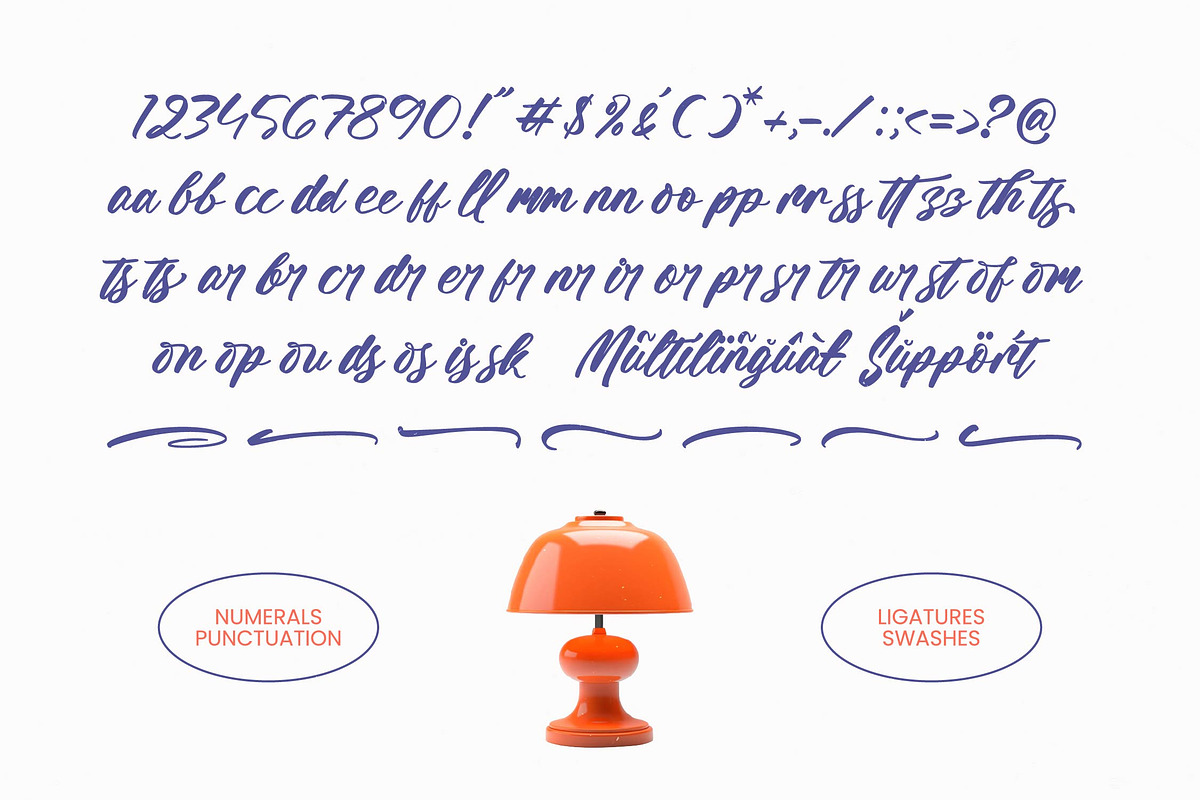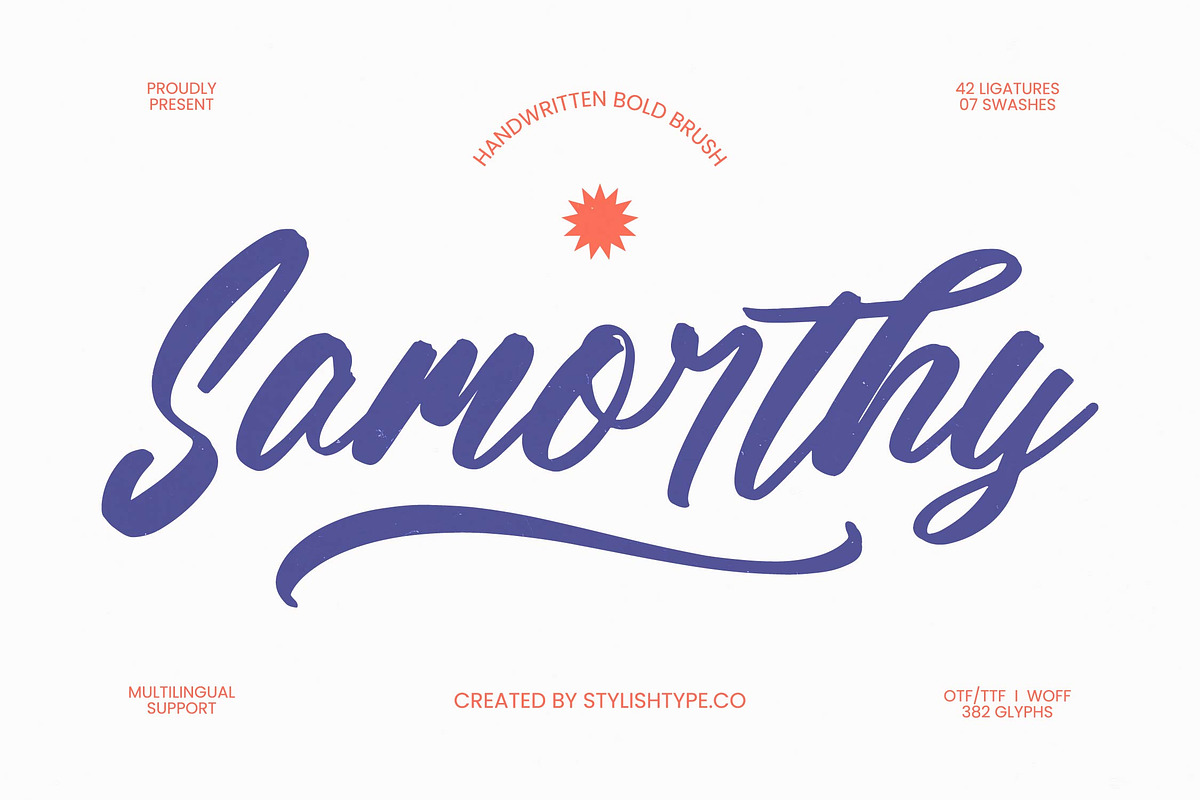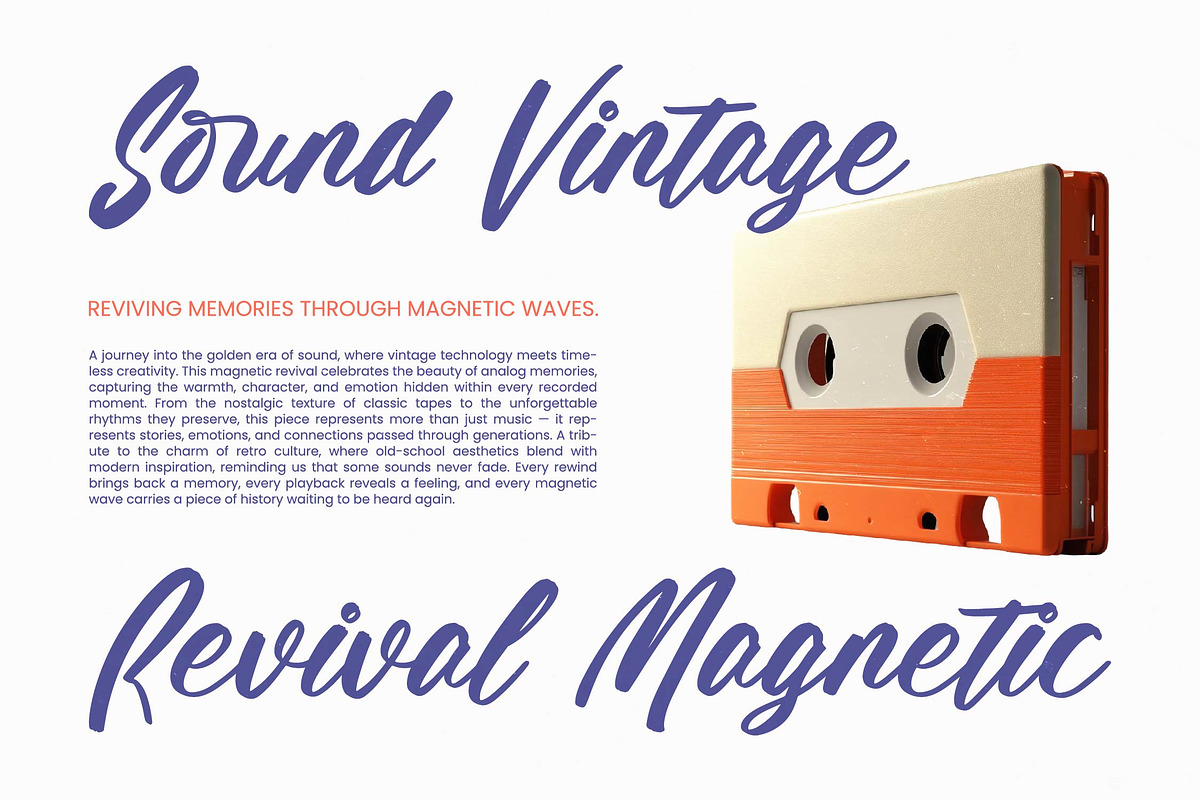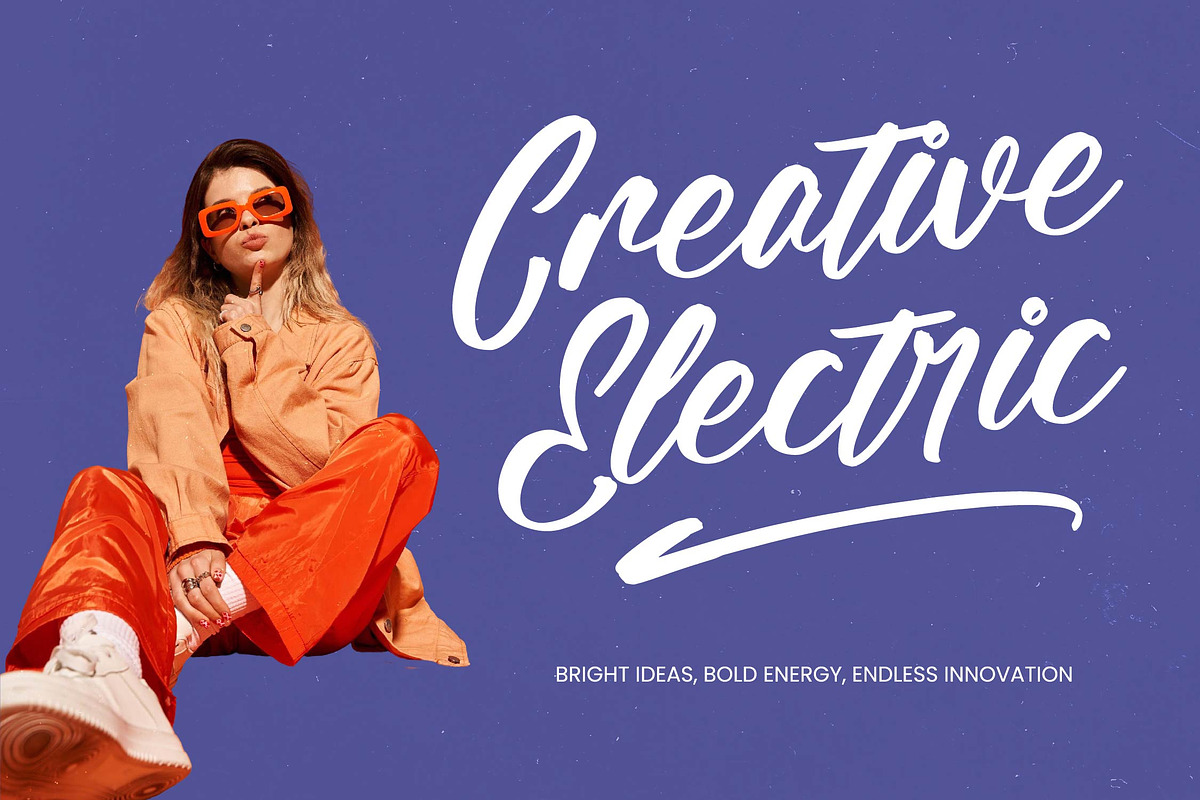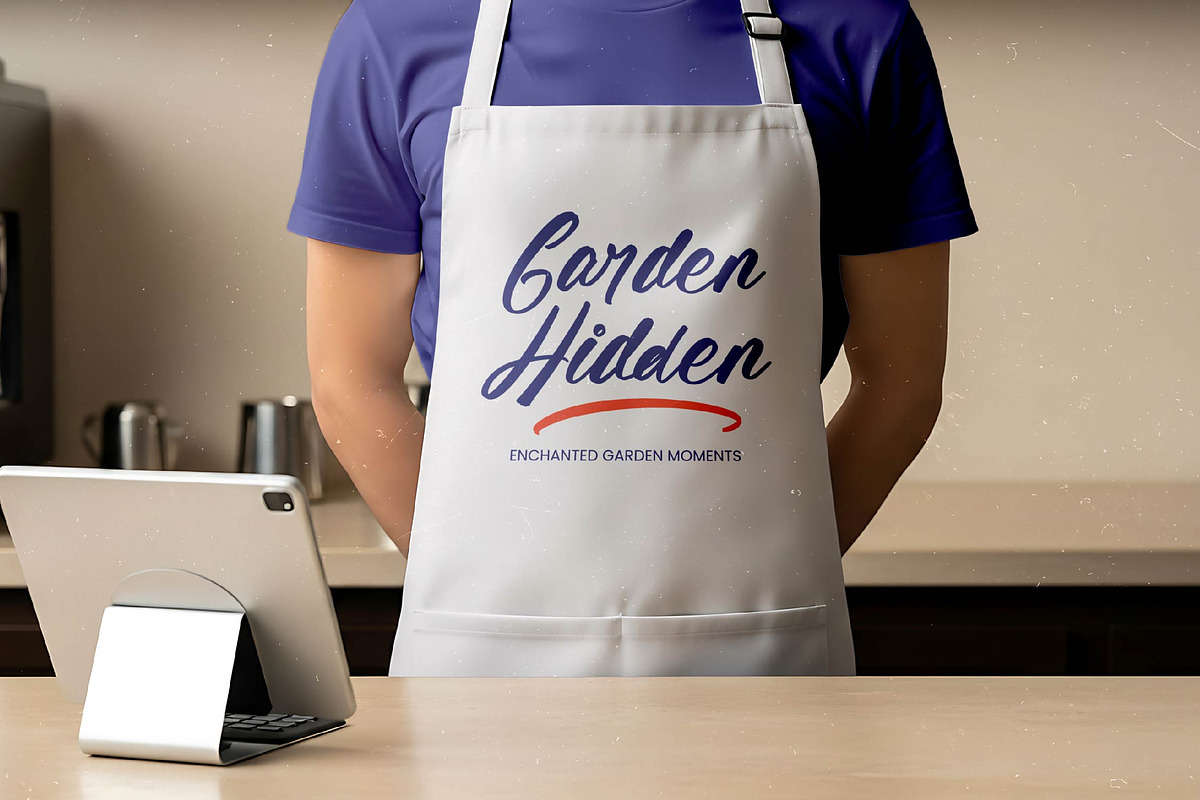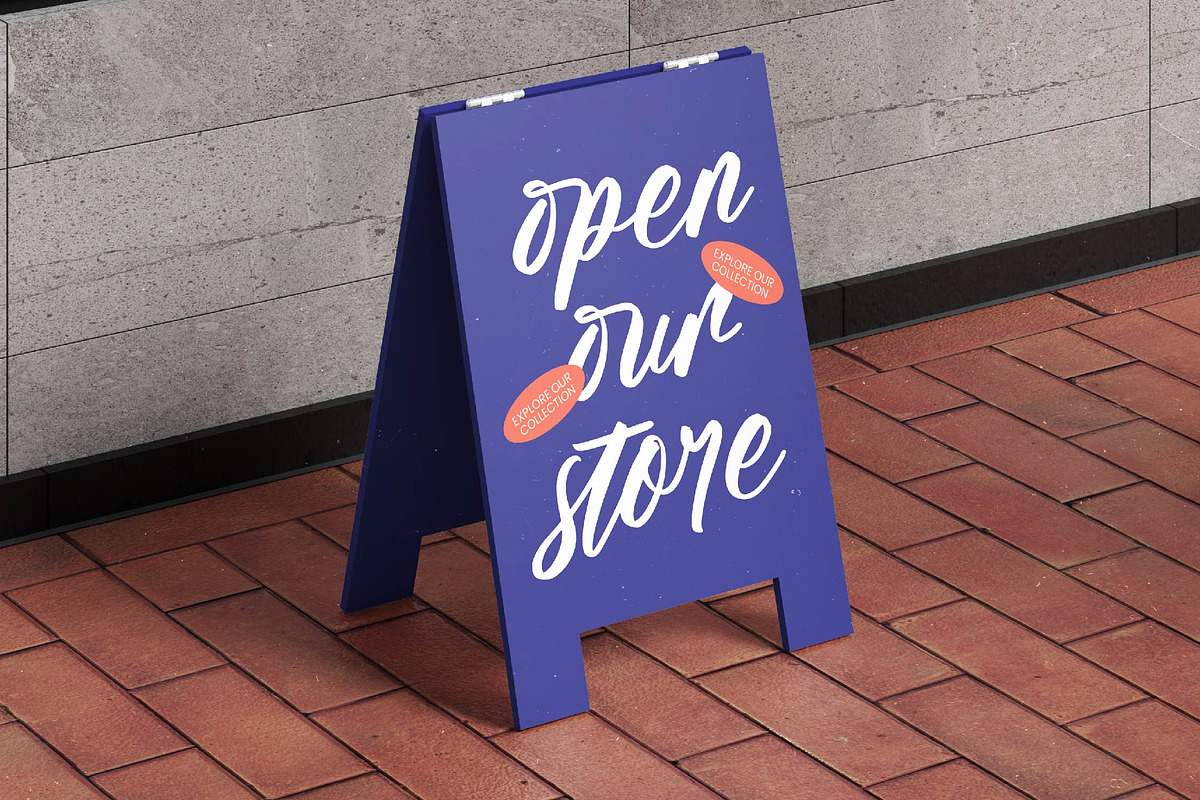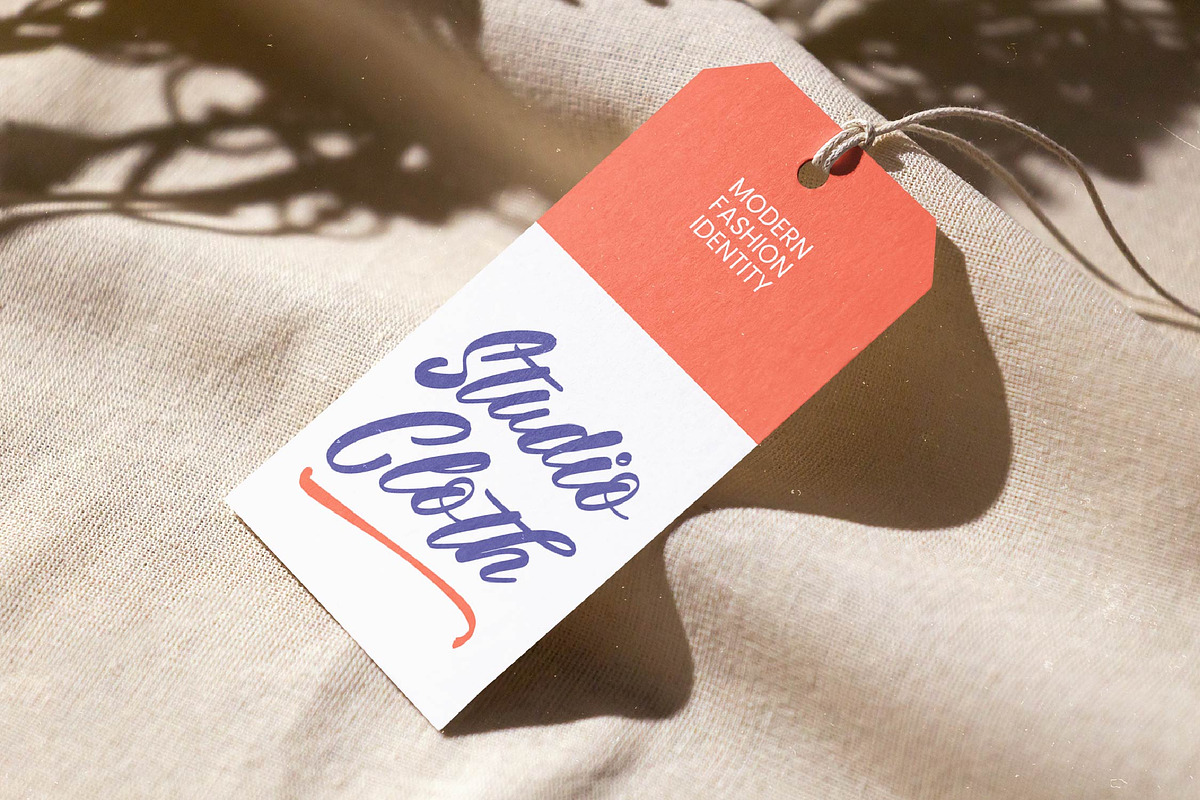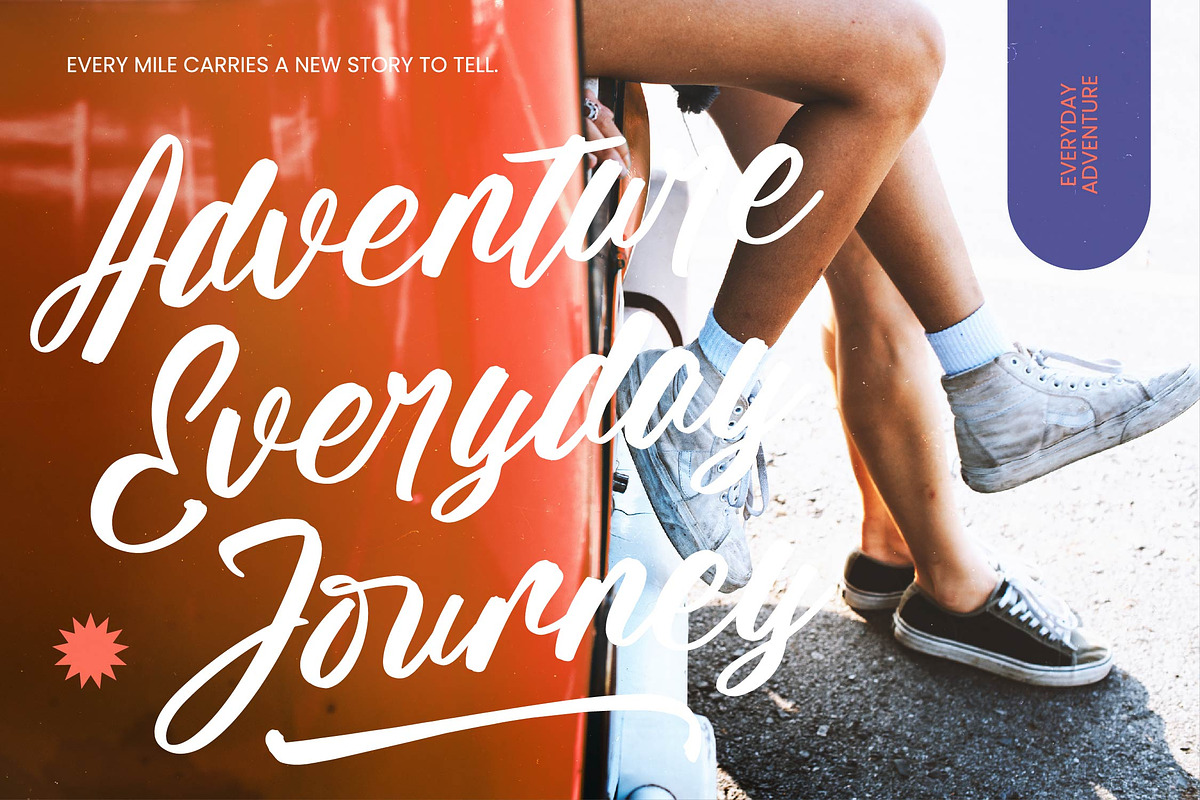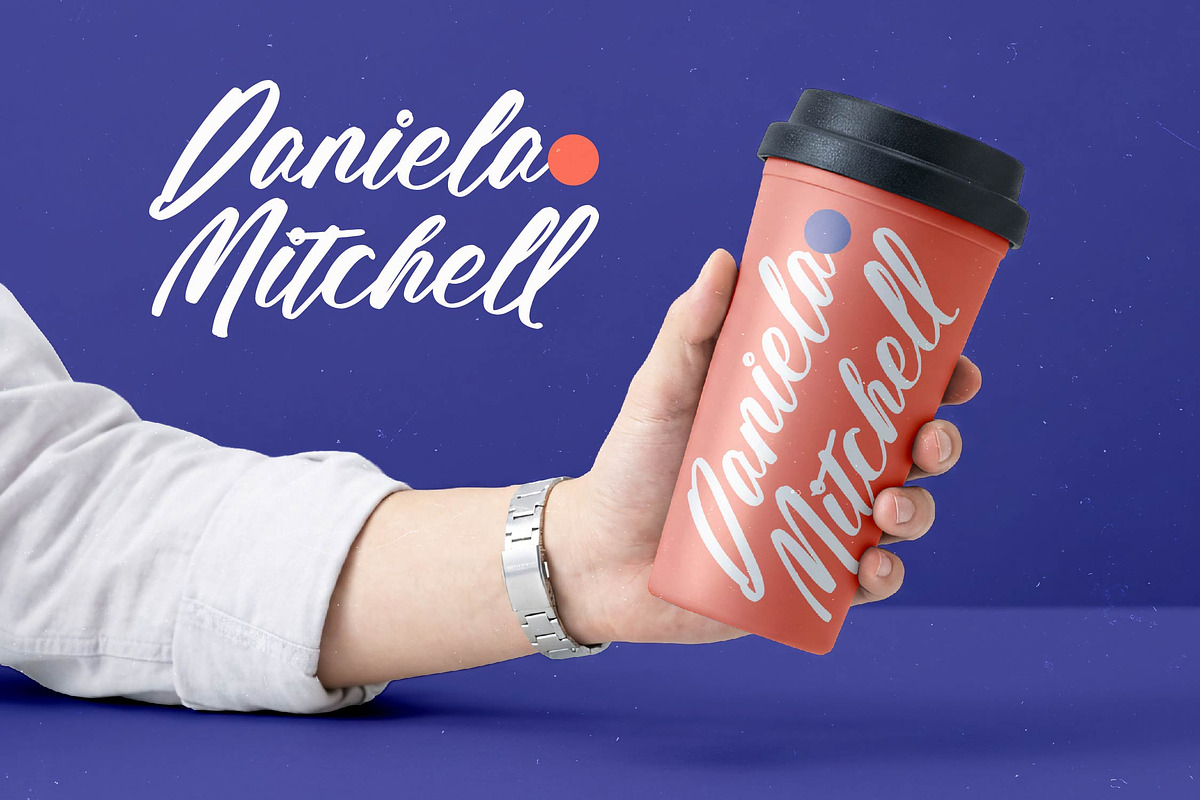
Samorthy Handwritten Brush Font
Samorthy - Handwritten Brush Font , Elevate your design projects with the striking personality of Samorthy - Handwritten Brush Font, a typeface that embodies the energy of bold brush strokes and handcrafted artistry. This high-impact script is meticulously designed to provide an authentic aesthetic that commands attention while maintaining a sophisticated flow. Whether you are aiming for a rugged urban look or a refined artisanal vibe, its dynamic letterforms ensure your message is delivered with unmistakable confidence and style.
Experience unparalleled creative freedom with a font built for professional versatility and global reach. Featuring a robust collection of 42 ligatures and 7 stylistic swashes, Samorthy - Handwritten Brush Font allows for customized typography that looks truly unique. With its extensive multilingual support, Samorthy - Handwritten Brush Font adapts seamlessly across global markets, making it incredibly versatile for international projects. The inclusion of 382 glyphs ensures that every design remains consistent and legible across various formats.
Unlock the potential of luxury branding and premium packaging with a typeface tailored for high-end applications. Samorthy - Handwritten Brush Font is the perfect choice for editorial design, fashion retail, logo creation, and social media marketing. Its bold visual presence makes it ideal for product labels and headline typography where a personal, human touch is essential to connect with your target audience and stand out in a crowded marketplace.